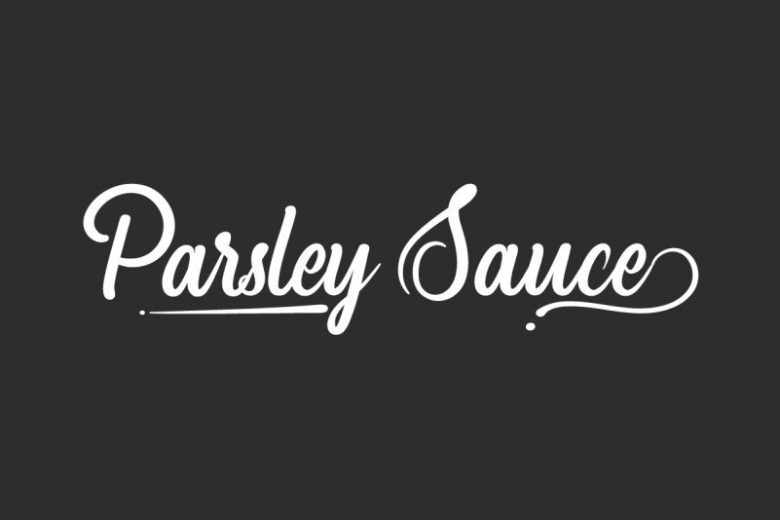
Parsley Sauce Font
Parsley Sauce Script Font is a beautiful calligraphy handwriting font with bold strong stylish characters, alternatives and ligatures. This font is crafted carefully in every its single letter so we can make sure it has great looking, inspired by the handwriting of Italian women and ancient manuscripts. Carefully designed to work together in harmony and This one should make your designs instantly professional and jaw-dropping!
Parsley Sauce Script Font includes full set of Uppercase and Lowercase Basic Characters, Numerals and Punctuation. Also it contains ligatures to make it flowless characters to perfectly make awesome look that add more aesthetic fonts to perfect your extraordinary project. Many industries will suit this font great including wedding, florist, sales marketing, professional, dentist, real estate, music, videography etc.